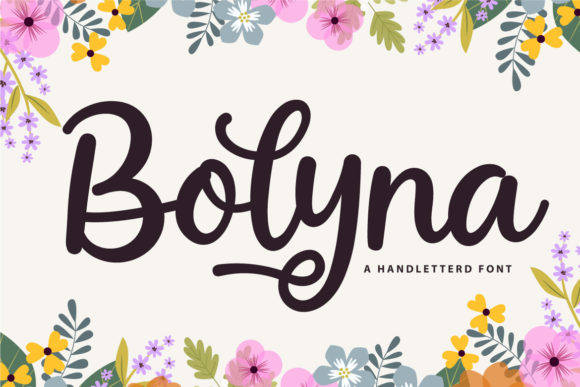
Introducing Bolyna Font: The Epitome of Elegance and Sophistication
In the realm of typography, few fonts manage to convey the essence of elegance and class as effectively as Bolyna. This exquisite script font has been meticulously crafted to infuse designs with a refreshing and beautiful aesthetic, making it an ideal choice for those seeking to elevate their creative projects. In this comprehensive article, we’ll delve into the world of Bolyna Font, exploring its features, applications, and the unique charm that sets it apart from other fonts.
The Genesis of Bolyna Font
Bolyna Font was specifically designed to cater to the needs of designers, artists, and craftsmen who strive for perfection in their work. The creators of Bolyna aimed to develop a font that not only exudes sophistication but also adds a touch of warmth and personality to any design. Through a meticulous process of refinement and iteration, Bolyna was born – a font that embodies the perfect blend of elegance, legibility, and charm.
Key Features of Bolyna Font
So, what makes Bolyna Font stand out from the crowd? Here are some of its key features:
- Delicate and Refined: Bolyna boasts a delicate and refined appearance, making it perfect for designs that require a touch of sophistication.
- Script Elegance: As a script font, Bolyna features flowing connections between letters, creating a sense of continuity and harmony.
- Legibility: Despite its delicate nature, Bolyna is remarkably legible, ensuring that your message is conveyed clearly and effectively.
- Versatility: Bolyna is suitable for a wide range of applications, from branding and advertising to packaging and digital media.
Applications of Bolyna Font
Bolyna Font’s versatility makes it an excellent choice for various design projects. Here are some of the ways you can utilize Bolyna:
- Branding and Logo Design: Bolyna’s elegant and refined appearance makes it perfect for creating sophisticated brand identities.
- Wedding and Event Design: Add a touch of romance and whimsy to your wedding invitations, stationery, and event materials with Bolyna.
- Packaging Design: Bolyna’s unique charm makes it an excellent choice for product packaging, particularly for luxury brands.
- Digital Media: Use Bolyna to create engaging and visually appealing digital content, such as social media graphics, blog headers, and more.
Tips for Using Bolyna Font Effectively
To get the most out of Bolyna Font, here are some expert tips:
- Pair with Neutral Backgrounds: Bolyna’s delicate nature is best complemented by neutral backgrounds, allowing the font to take center stage.
- Experiment with Colors: Bolyna looks stunning in a variety of colors, so don’t be afraid to experiment and find the perfect hue for your design.
- Use for Headings and Titles: Bolyna’s script elegance makes it perfect for headings and titles, adding a touch of sophistication to your designs.
- Mix with Other Fonts: Combine Bolyna with other fonts to create visually appealing typography and add depth to your designs.
In conclusion, Bolyna Font is a stunning script font that embodies the essence of elegance and sophistication. Its delicate and refined appearance, combined with its legibility and versatility, make it an excellent choice for a wide range of design projects. Whether you’re a designer, artist, or craftsman, Bolyna is sure to become a valuable addition to your typography arsenal. So why wait? Discover the charm of Bolyna Font today and elevate your designs to new heights!
- What is Bolyna Font? Bolyna Font is a lovely and delicate script font designed to add an elegant and refreshing touch to designs.